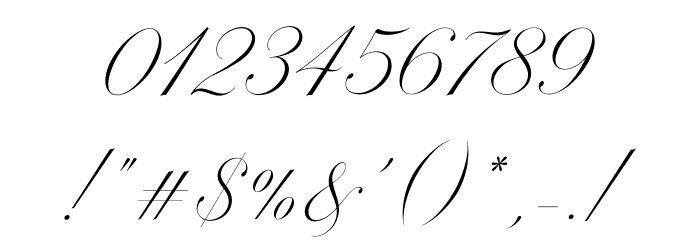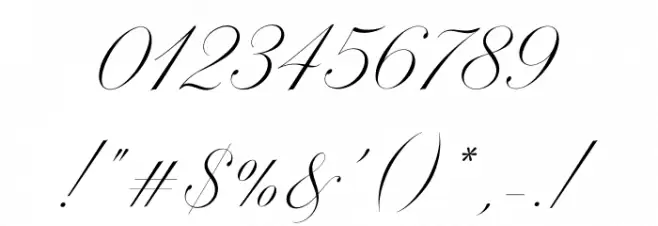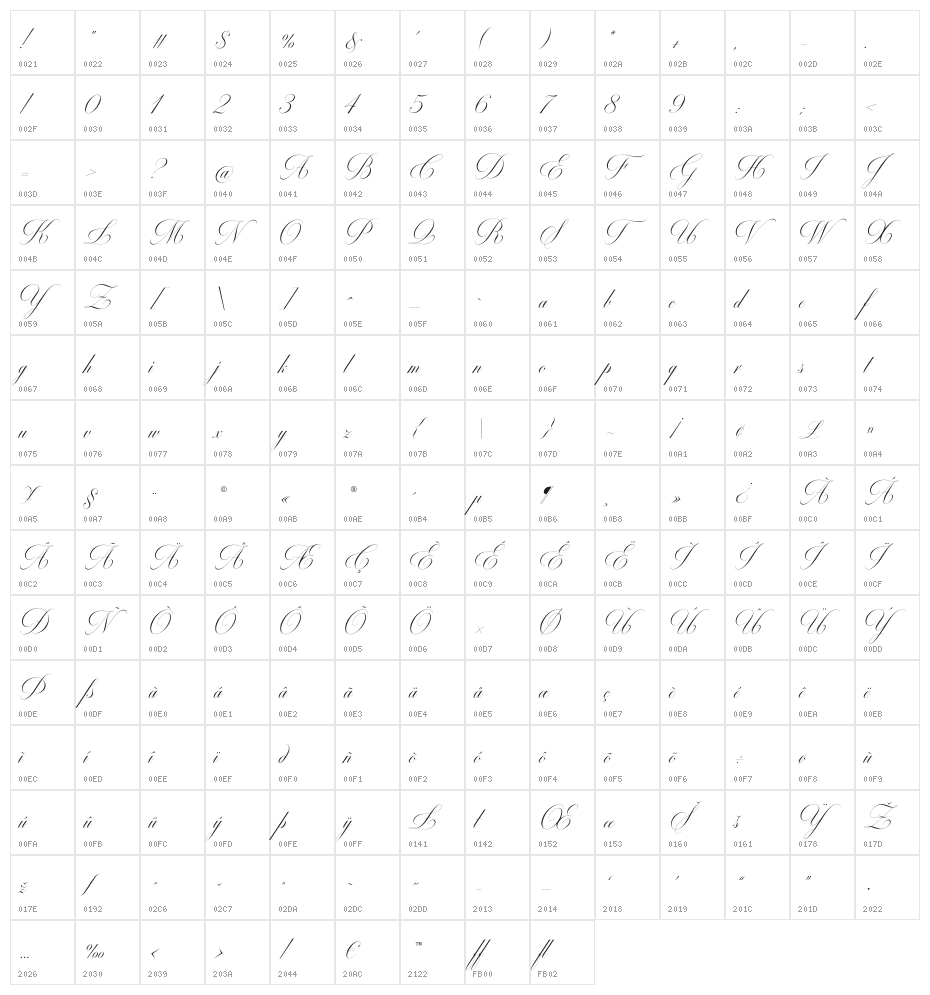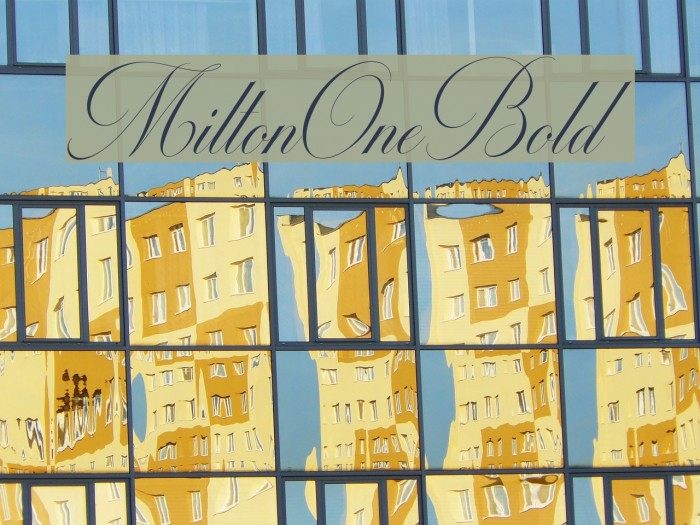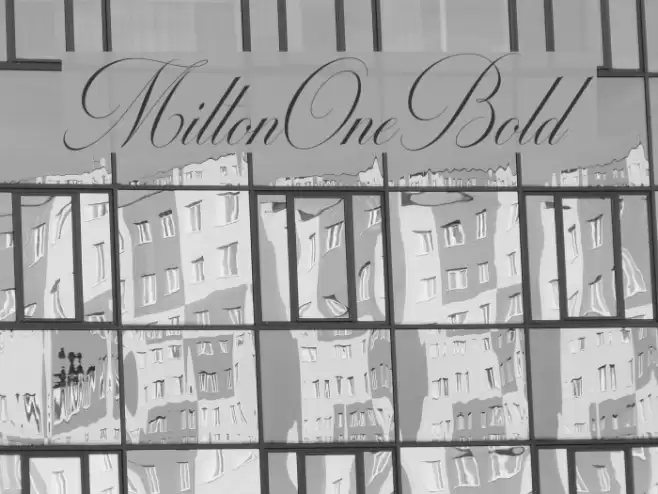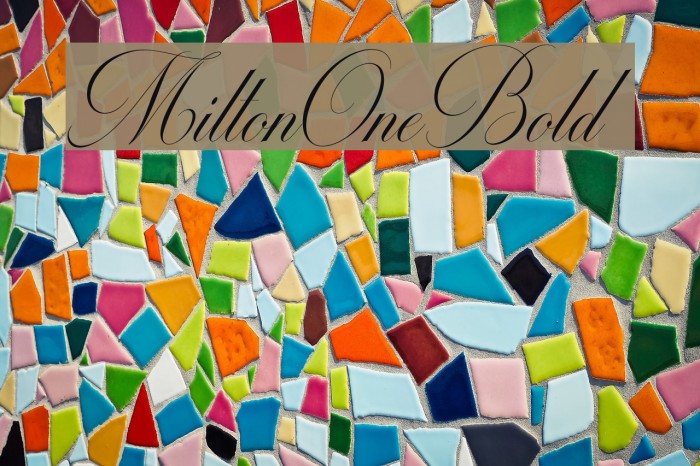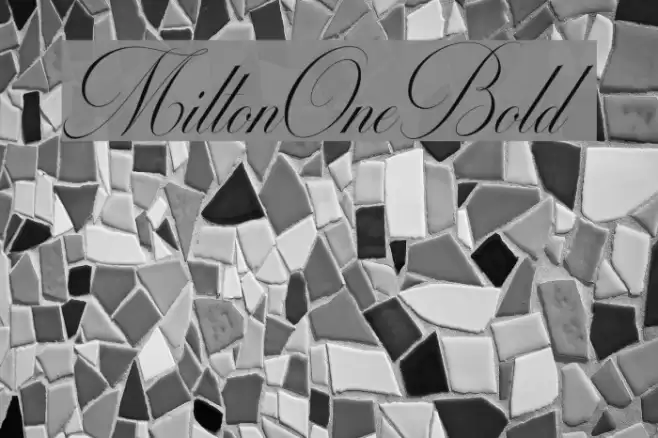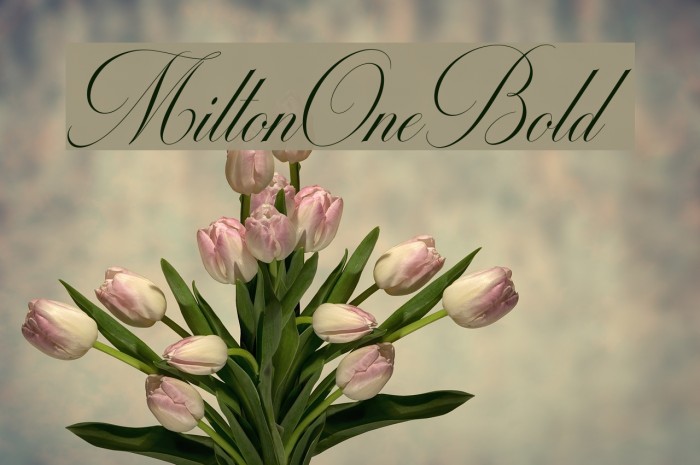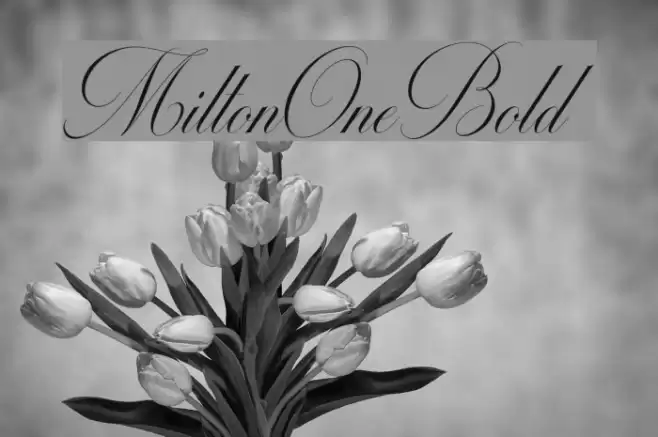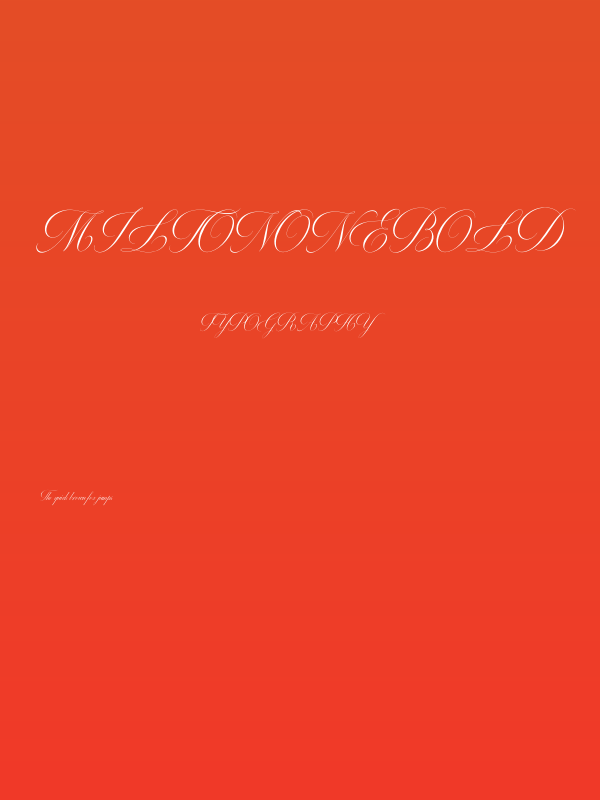
MiltonOneBold Font
MiltonOneBold Description
This elegant script font features flowing, cursive letterforms with a refined and sophisticated appearance. The characters are intricately designed with delicate curves and loops, creating a sense of movement and grace. The uppercase letters are particularly ornate, with extended flourishes that add a touch of luxury and formality. The lowercase letters maintain a consistent style, complementing the uppercase with their own subtle embellishments. The numerals are styled to match the overall aesthetic, offering a cohesive look across all characters. This font is ideal for projects that require a touch of elegance and sophistication, such as wedding invitations, formal event programs, or luxury branding materials.
| Use Case | Logos, Invitations, Formal Documents |
| Proposed Projects | Ideal for wedding invitations, formal event programs, luxury branding, and elegant stationery. |